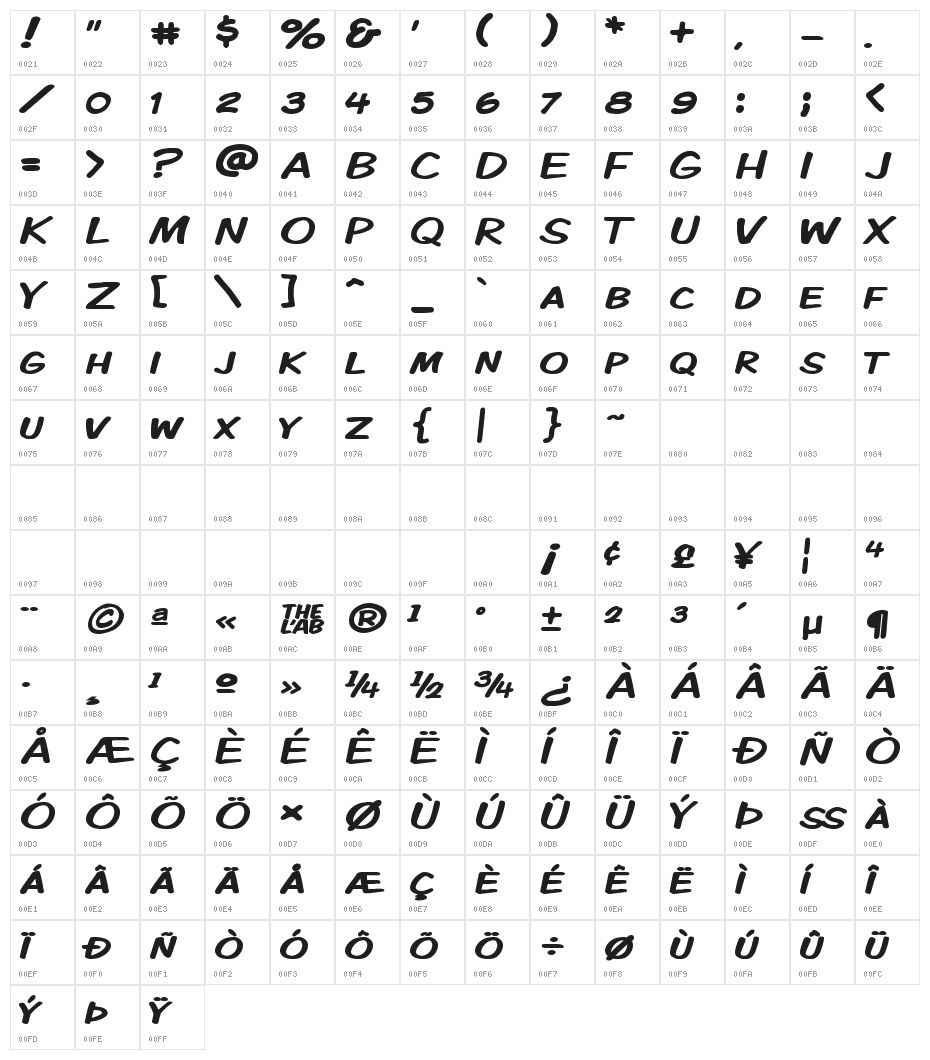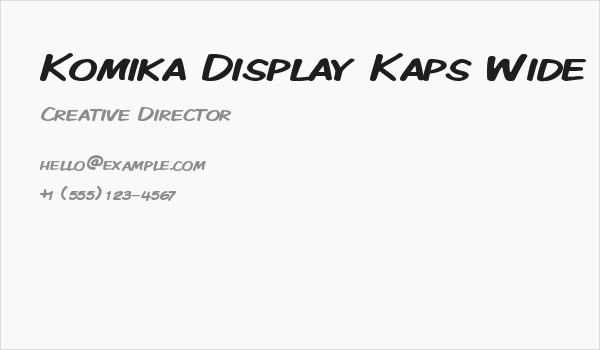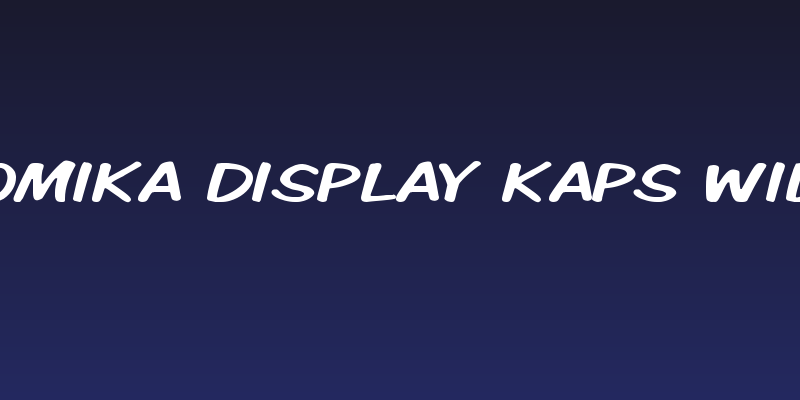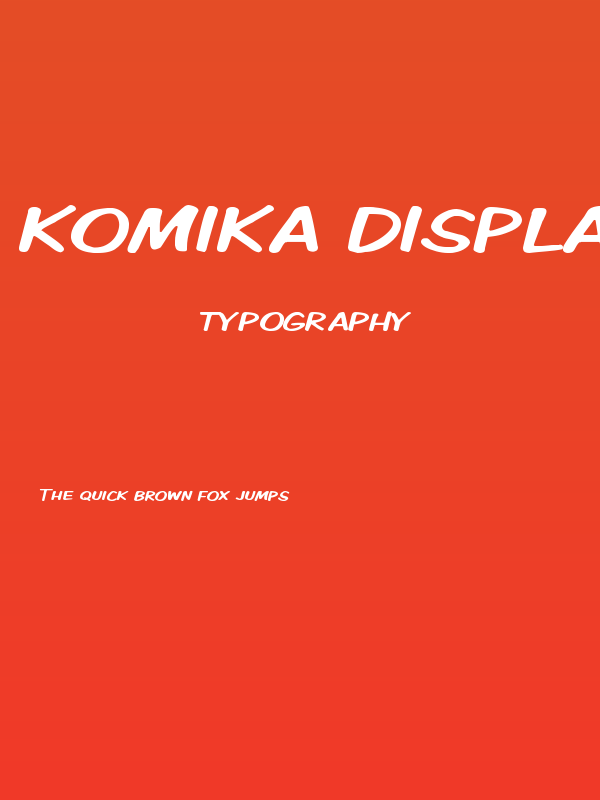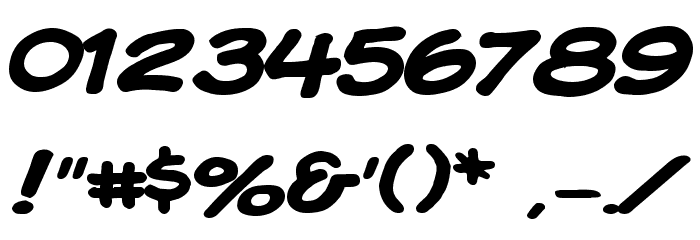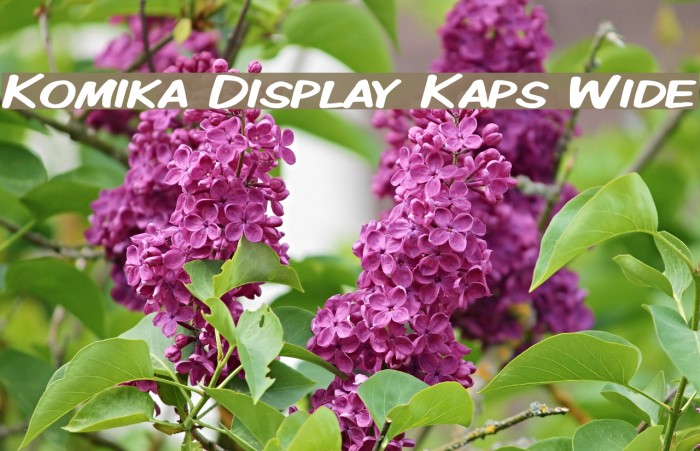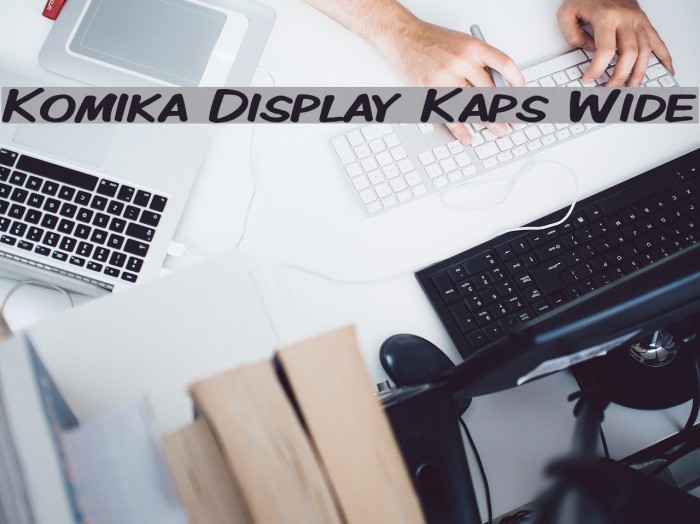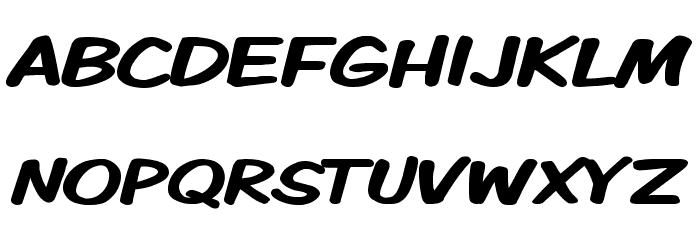
Komika Display Kaps Wide Font
This font features a playful and bold style, characterized by its rounded and slightly slanted letterforms. The uppercase and lowercase letters share a consistent width, giving it a cohesive appearance. The numbers and special characters maintain the same lively and dynamic feel, making it suitable for attention-grabbing designs. Its thick strokes and smooth curves contribute to a friendly and approachable look, ideal for projects that require a touch of whimsy and fun. The font's overall aesthetic is reminiscent of comic book lettering, making it perfect for creative and informal applications.
| Overall Style | Playful, Comic |
| Proposed Projects | Comic books, children's books, playful branding, posters, and informal invitations. |